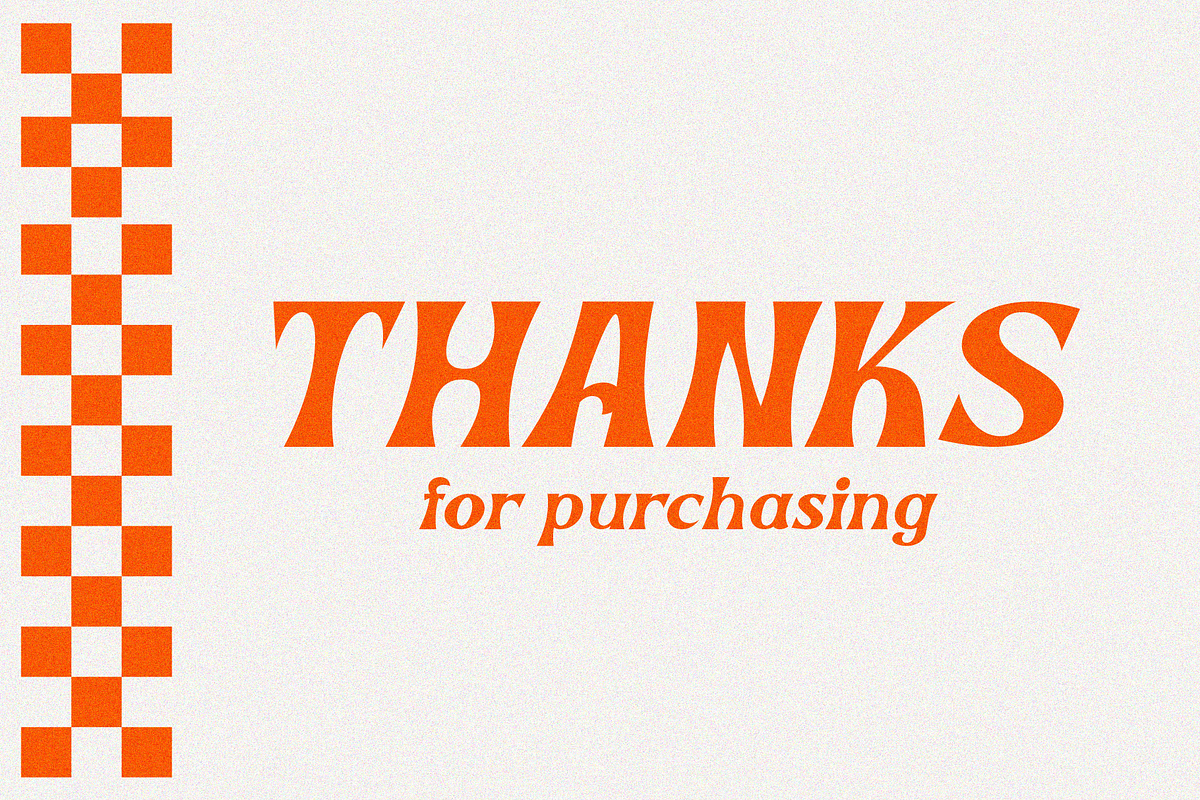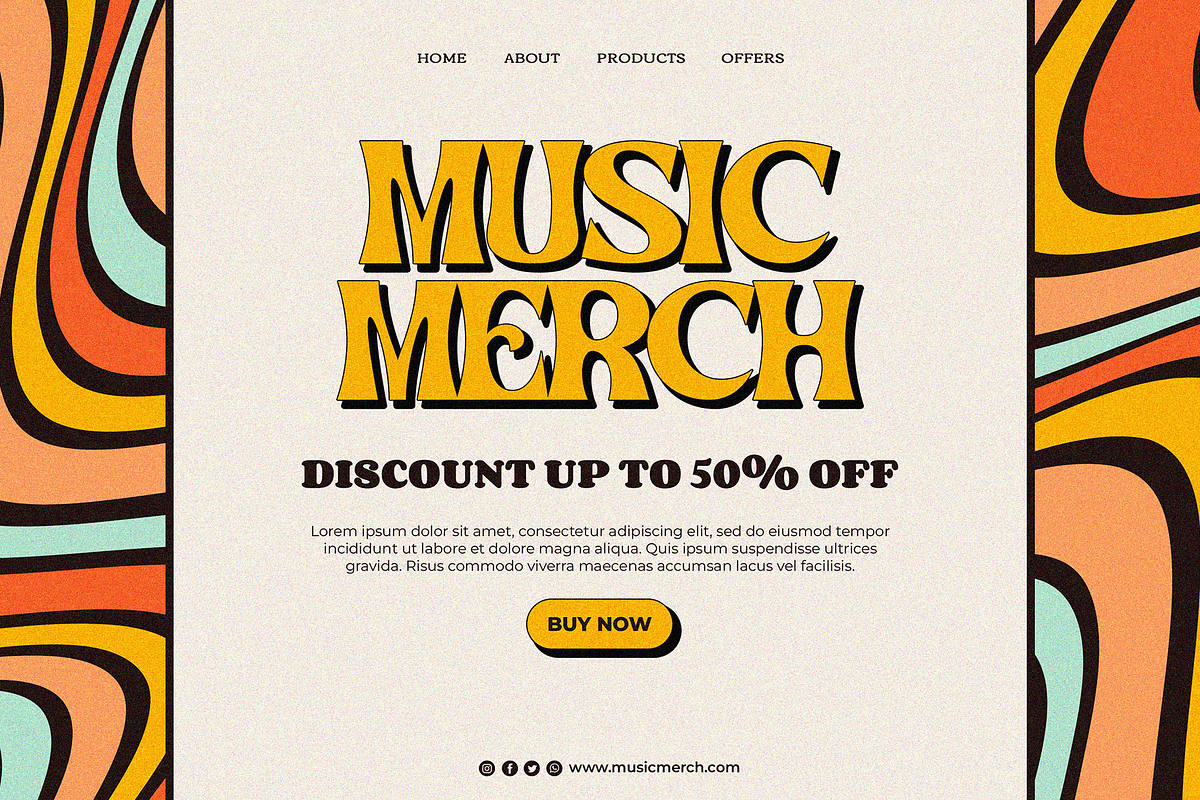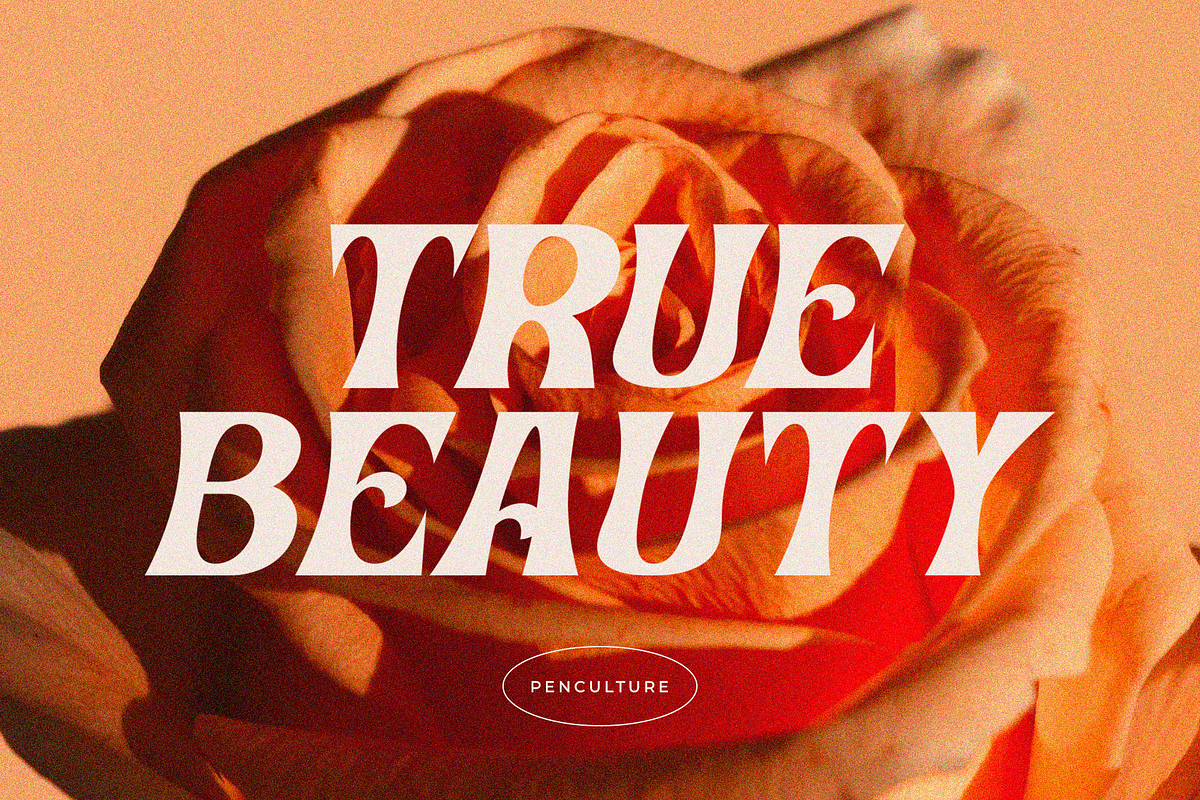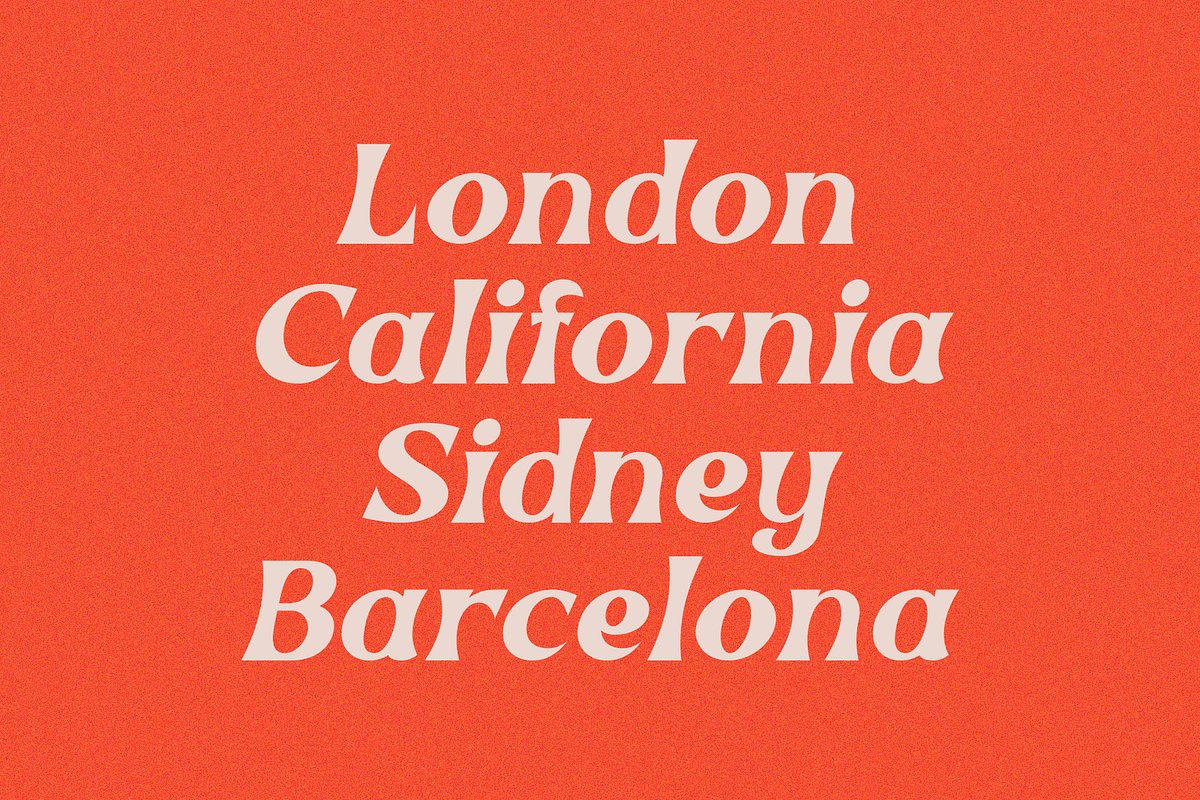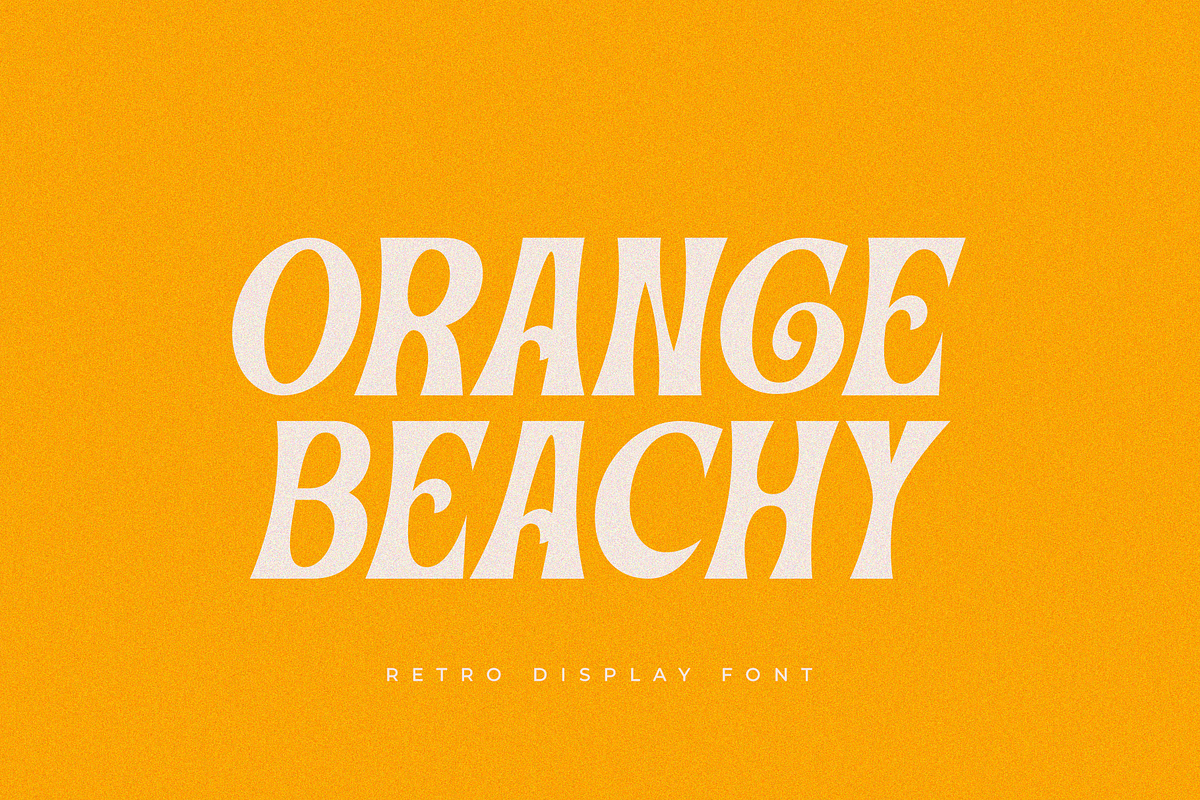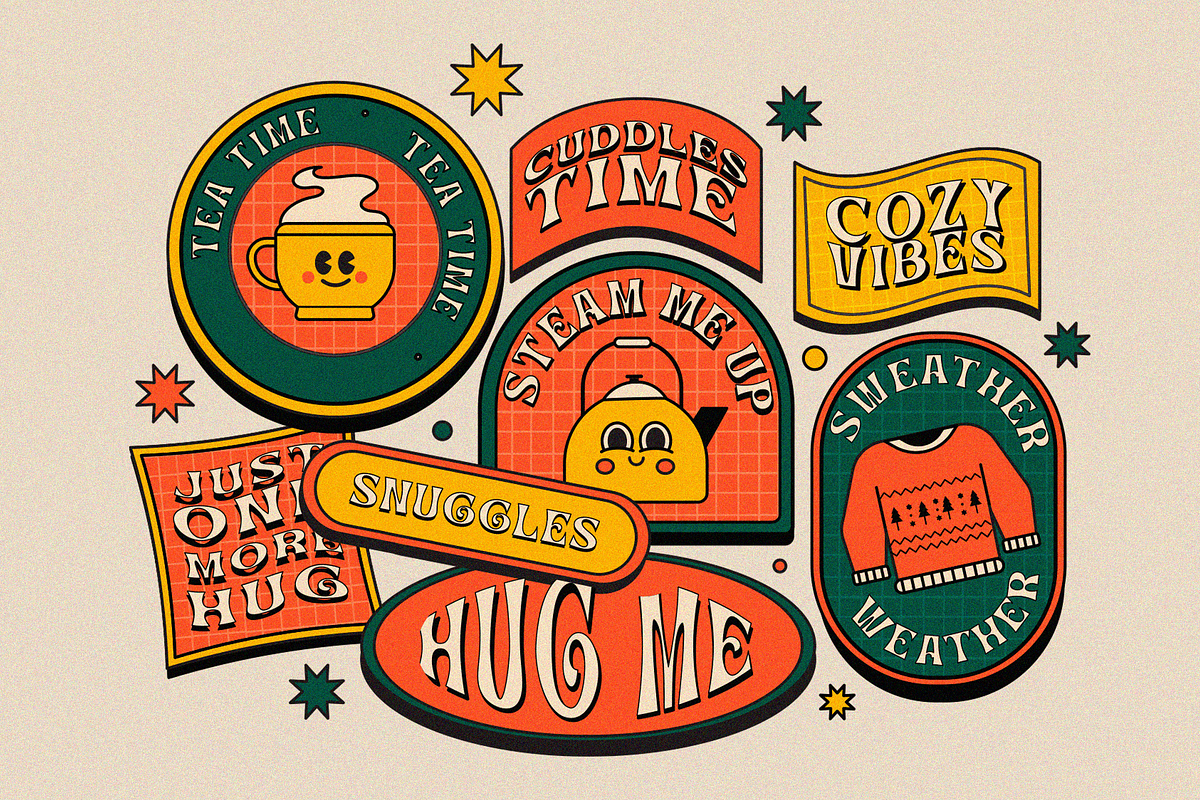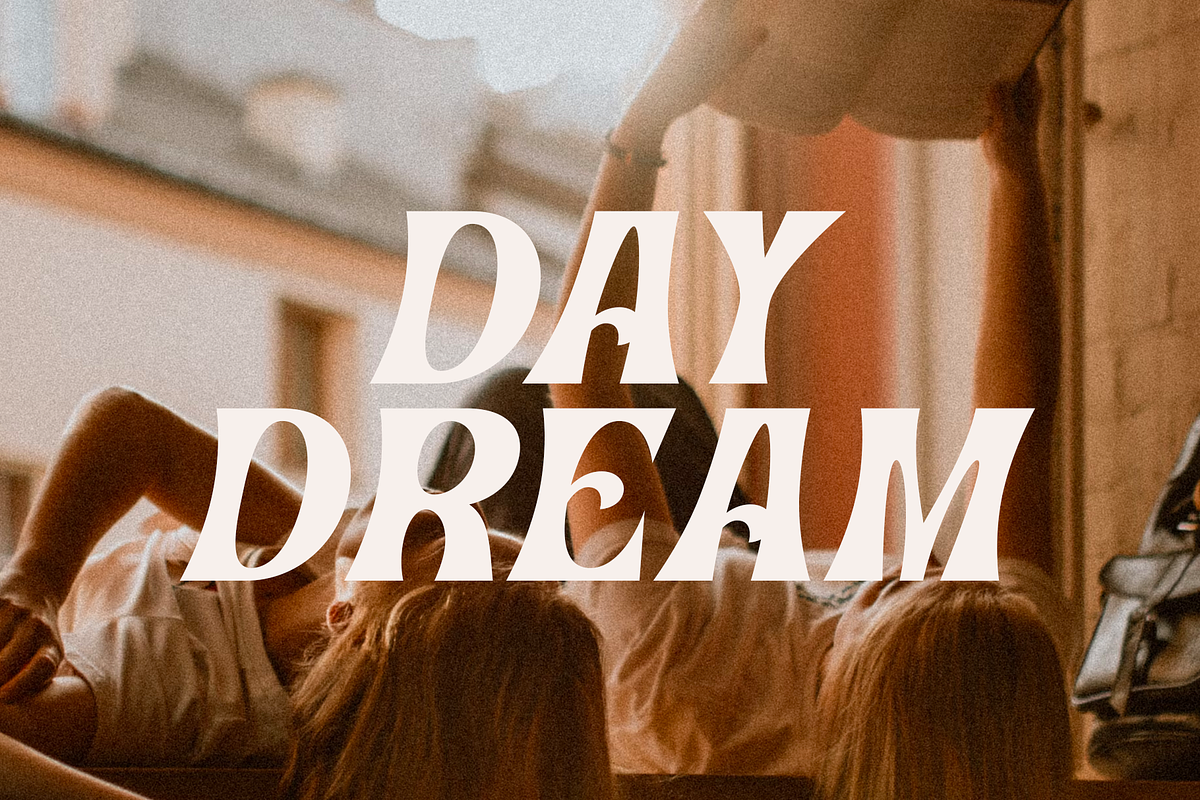
Orange Beachy - Retro Fonts
Proudly Present "Orange Beachy - Retro Fonts"
Orange Beachy is inspired by the sunset on the beach. where the orange color in a clean and beautiful sunset will always be charming. Same as this font, orange beachy has a clean and beautiful shape but doesn't leave a retro feel. This font perfect for any kind of design project like logo design, branding, cricut project and many more.